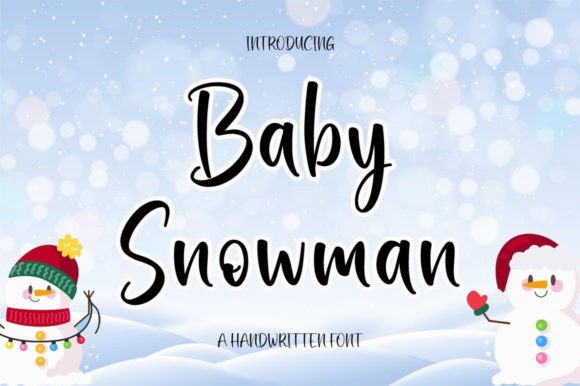
Discover the Magic of Baby Snowman Font
Have you ever stumbled upon a font that instantly sparks creativity and transports you to a winter wonderland? For me, it was the moment I laid eyes on the Baby Snowman Font. Its whimsical charm and delicate strokes evoke a sense of nostalgia and warmth, making it the perfect choice for any design project.
As a versatile and timeless handwritten font, Baby Snowman Font is designed to add a touch of personality to your logos, branding, and quotes. Its unique character makes it stand out from more traditional fonts, allowing designers to express their creativity and add a personal touch to their work. Whether you’re a seasoned pro or a budding designer, Baby Snowman Font is a valuable addition to your toolkit.
With its versatility and charm, it’s no wonder Baby Snowman Font has become a favorite among designers. Its ability to evoke emotions and create a lasting impression makes it a valuable asset for any design project.
Baby Snowman Font Key Features
- Font Family: Baby Snowman Font
- Unique Characteristics: The font features a playful and whimsical design, with intricate details and textures, making it perfect for winter-themed designs and projects.
Baby Snowman Font Review
I recently had the chance to work with the Baby Snowman Font, and I must say it’s a unique and charming addition to any winter-themed project. ✨ The font’s playful, handwritten feel is perfect for creating a whimsical atmosphere. The letters are well-crafted, with a good balance of bold and delicate lines.
One of the things I appreciate about this font is its versatility. ✨ It can be used for a variety of purposes, from children’s books to holiday cards, and even branding for winter-themed businesses. The font is also highly customizable, allowing you to adjust the size, color, and style to suit your needs.
While the Baby Snowman Font is a great addition to any project, there are a few limitations to consider. ⚠️ One of the main issues is that the font is not as robust as some other fonts on the market. It may not be suitable for large-scale or complex projects, where a more robust font would be more effective. Additionally, the font may not be as legible at very small sizes, which could be a problem for some applications.
In conclusion, the Baby Snowman Font is a delightful and charming addition to any winter-themed project. While it may have some limitations, its unique feel and versatility make it a great choice for many applications. With a little creativity and planning, this font can add a touch of magic to your designs.
- Playful, handwritten feel
- Well-crafted letters with a good balance of bold and delicate lines
- Versatile for a variety of purposes
Practical Application Guide for Baby Snowman Font
For the most effective use of Baby Snowman Font, use it for titles, headings, and short paragraphs.
It’s ideal for winter-themed designs, children’s books, and festive invitations.
Remember to pair the font with a clean and simple design to make the most of its unique character.
Alternatives to Baby Snowman Font
The Great Vibes Font is a handwritten, cursive script font that can add a touch of elegance and sophistication to any design. It’s perfect for creating invitations, wedding cards, and other special occasions where a personal touch is needed. Compared to Baby Snowman Font, Great Vibes Font has a more refined and polished look, making it ideal for formal events.
Pacifico is a beautiful, elegant script font that’s perfect for creating a sense of calmness and serenity. It’s ideal for designing websites, magazines, and other publications where a soothing atmosphere is desired. Compared to Baby Snowman Font, Pacifico has a more relaxed and casual vibe, making it suitable for a wide range of applications.
Alex Brush is a handwritten, brush script font that’s perfect for creating a sense of warmth and friendliness. It’s ideal for designing social media graphics, posters, and other promotional materials where a personal touch is needed. Compared to Baby Snowman Font, Alex Brush has a more rustic and vintage look, making it suitable for designs that require a touch of nostalgia.